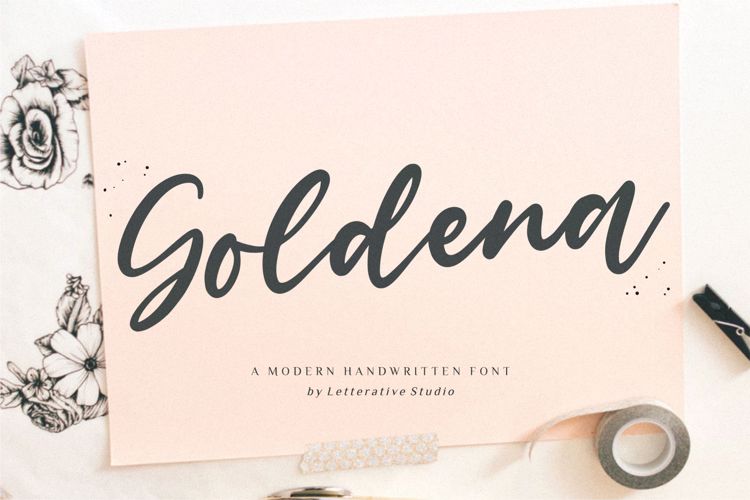
Goldena Font
Introducing by Letterative Studio : Goldena Font
Goldena is a Modern Handwritten Font
Goldena is perfect for product packaging, branding project, megazine, social media, wedding, or just used to express words above the background.